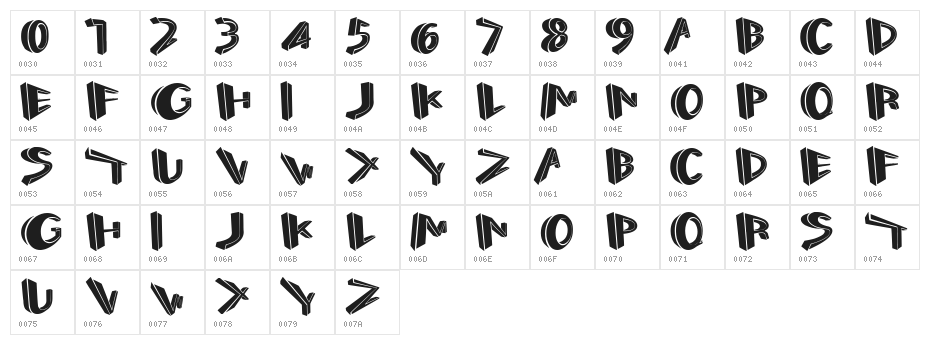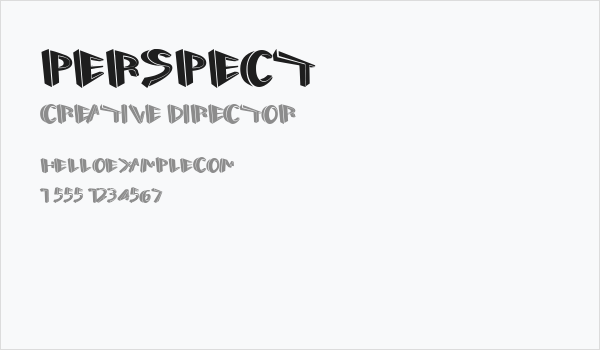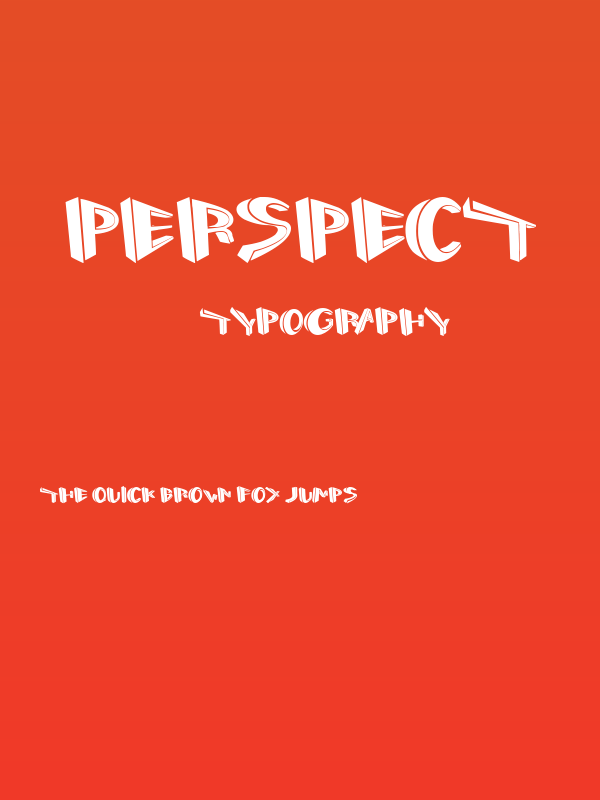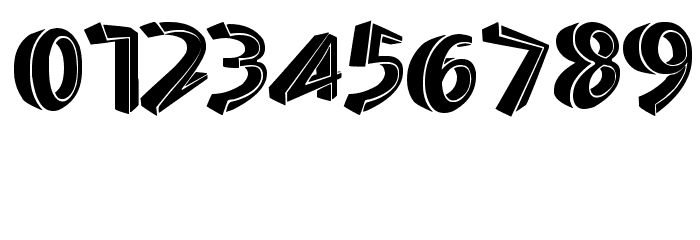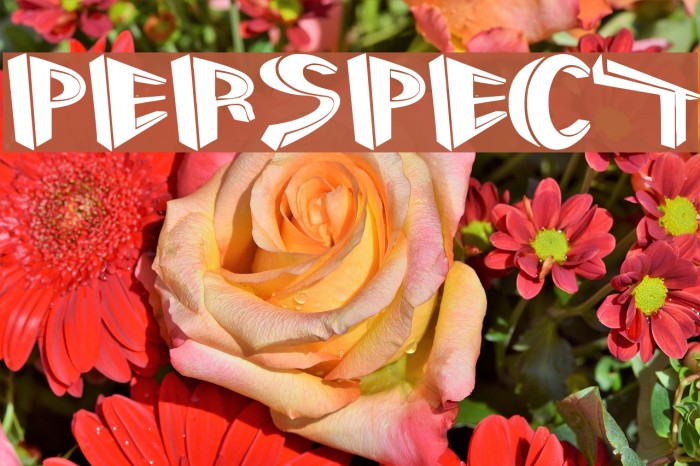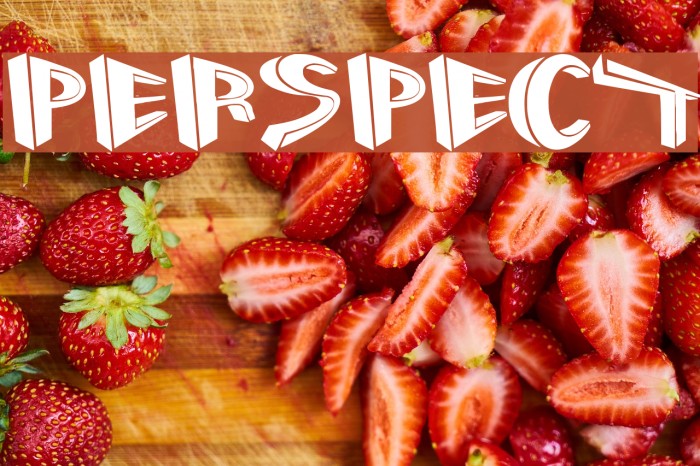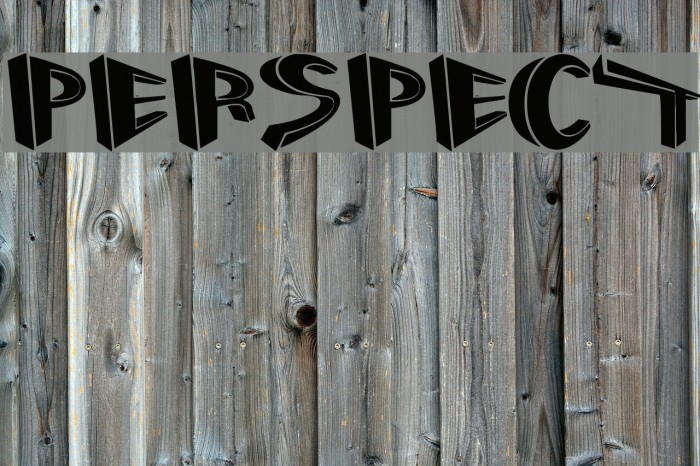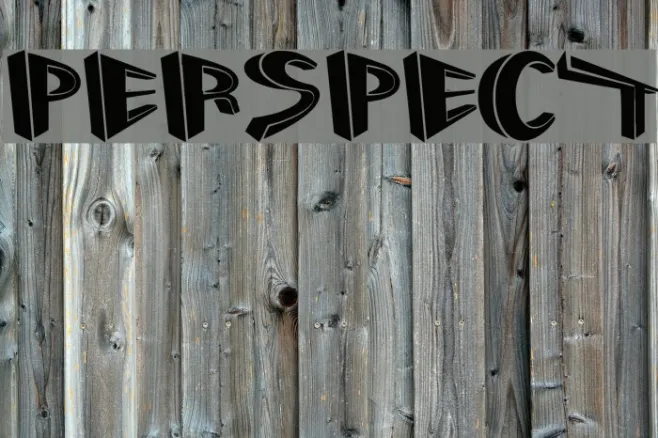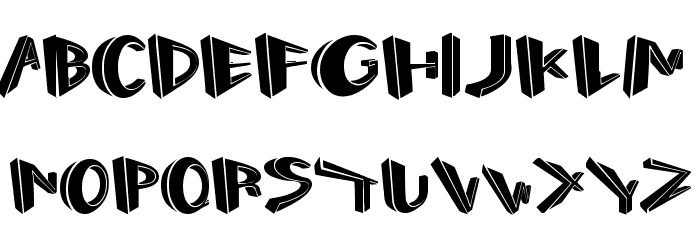
Perspect Font
Perspect Description
This font features a bold, three-dimensional design that gives each character a striking, shadowed appearance. The letters are crafted with a sense of depth, making them appear as if they are popping off the page. The geometric shapes and angular lines contribute to a modern and dynamic aesthetic. The uppercase and lowercase letters maintain a consistent style, ensuring uniformity across different text applications. The numbers and special characters follow the same design principles, providing a cohesive look throughout. This font is ideal for projects that require a bold and eye-catching typeface.
| Proposed Projects | Ideal for posters, logos, headlines, and any design needing a bold, standout typeface. |